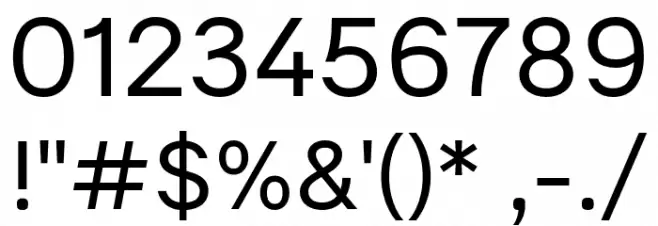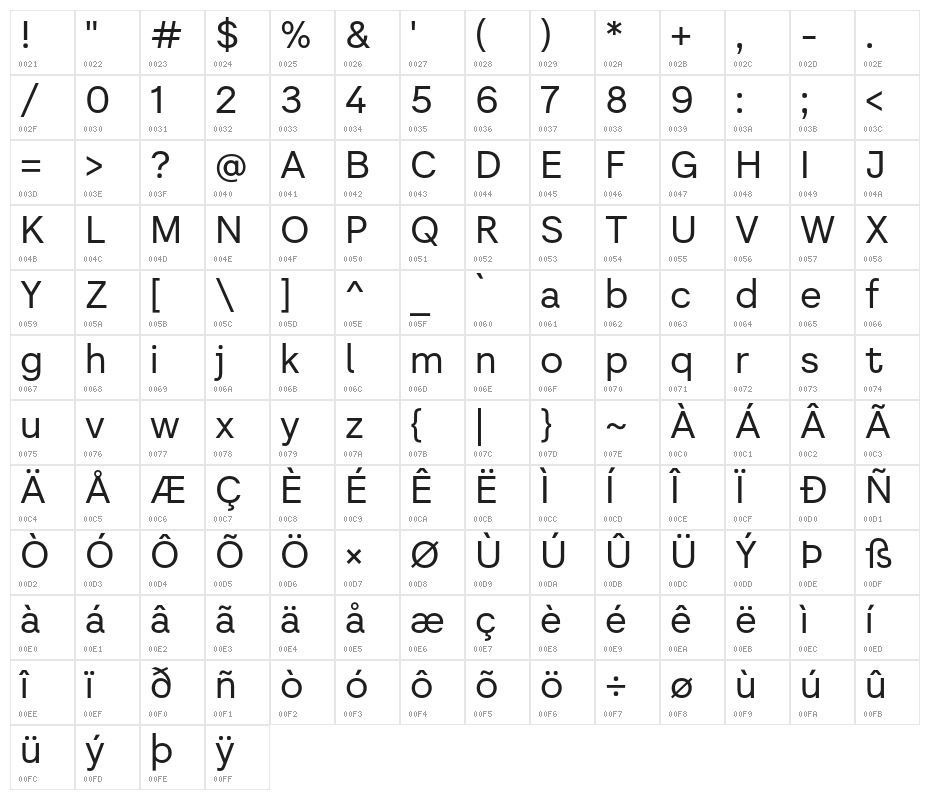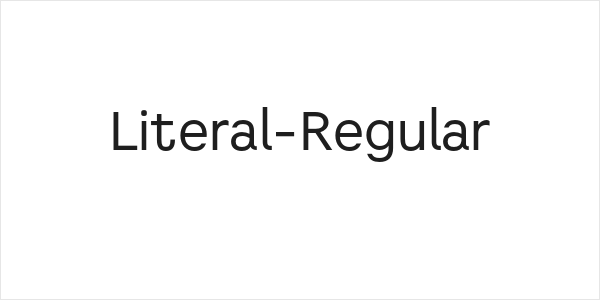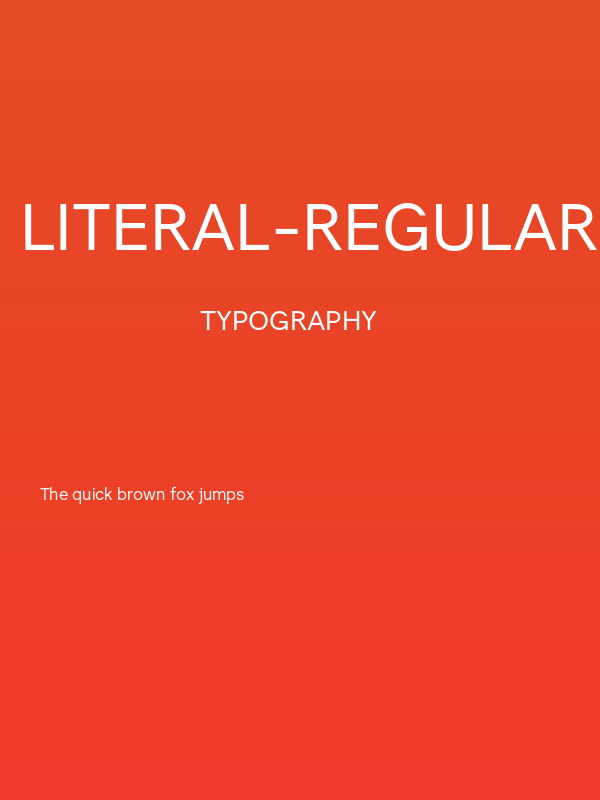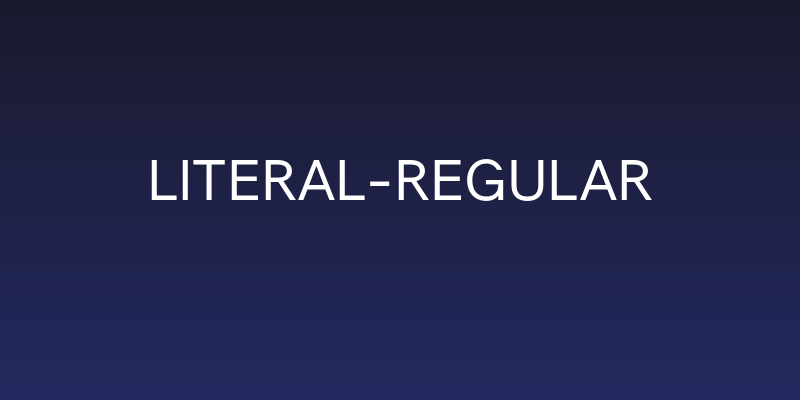
Literal-Regular Font
Literal-Regular Description
This font features a clean and modern sans-serif design with a balanced and uniform appearance. The characters are well-proportioned, offering a harmonious blend of geometric precision and subtle curves. The uppercase letters are bold and assertive, while the lowercase letters maintain a friendly and approachable feel. The numerals are clear and easily distinguishable, making them suitable for a variety of applications. The special characters are neatly integrated, ensuring consistency across all glyphs. This font's simplicity and clarity make it highly versatile for both digital and print media.
| Proposed Projects | Ideal for branding, web design, advertising, and editorial projects where clarity and modernity are key. |